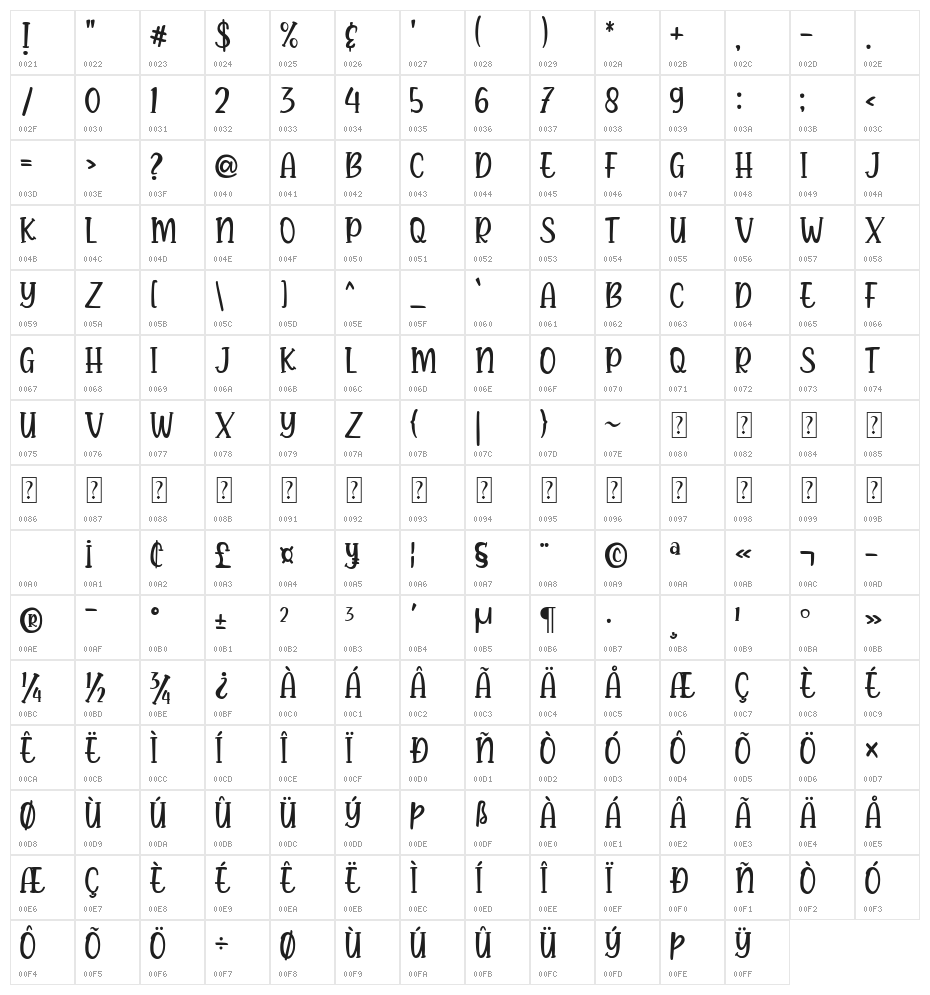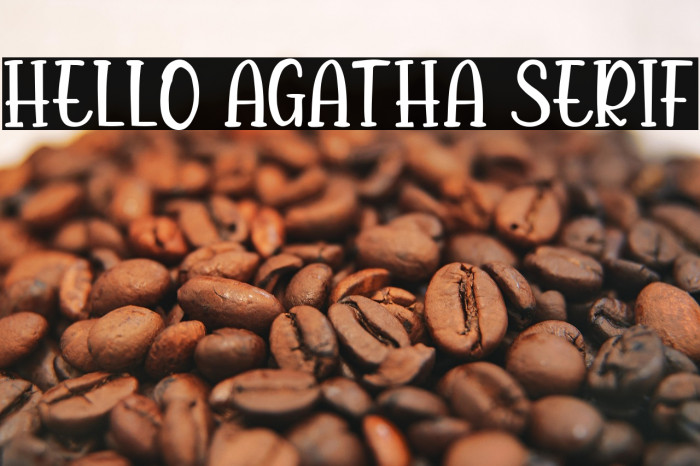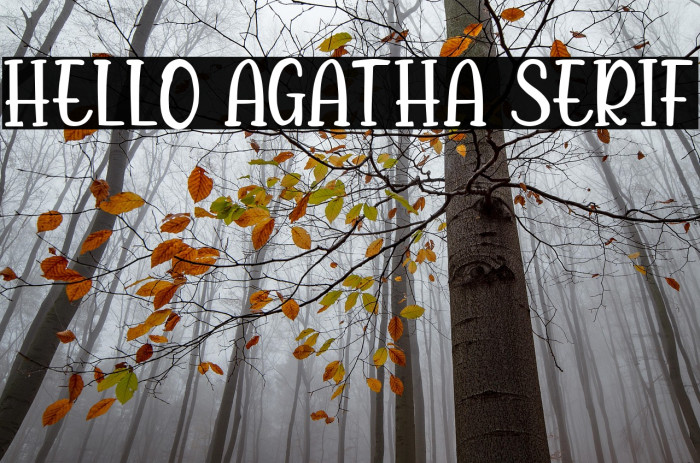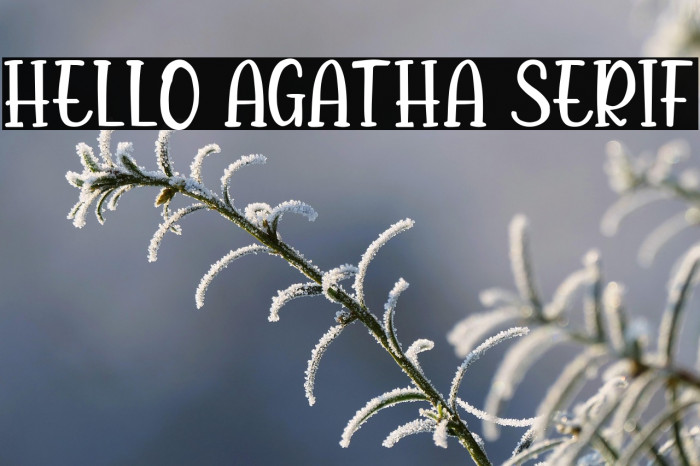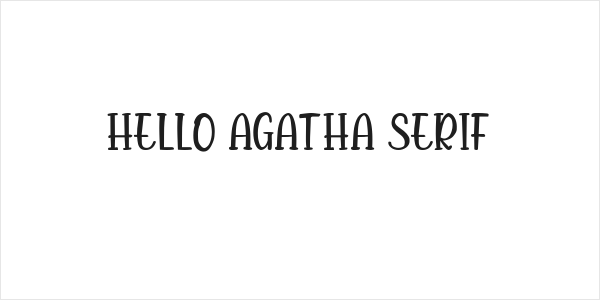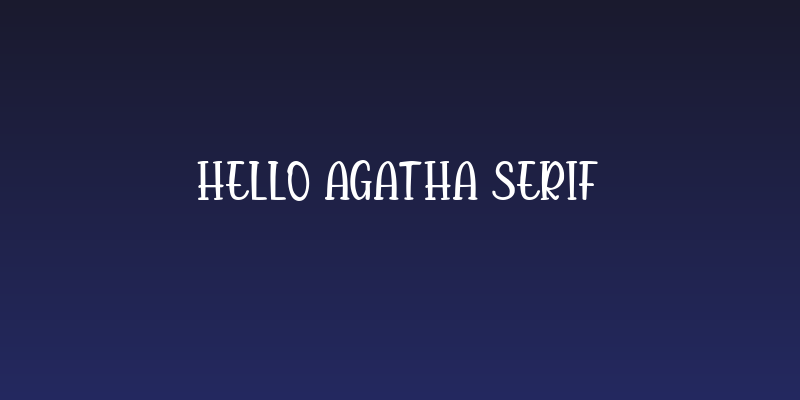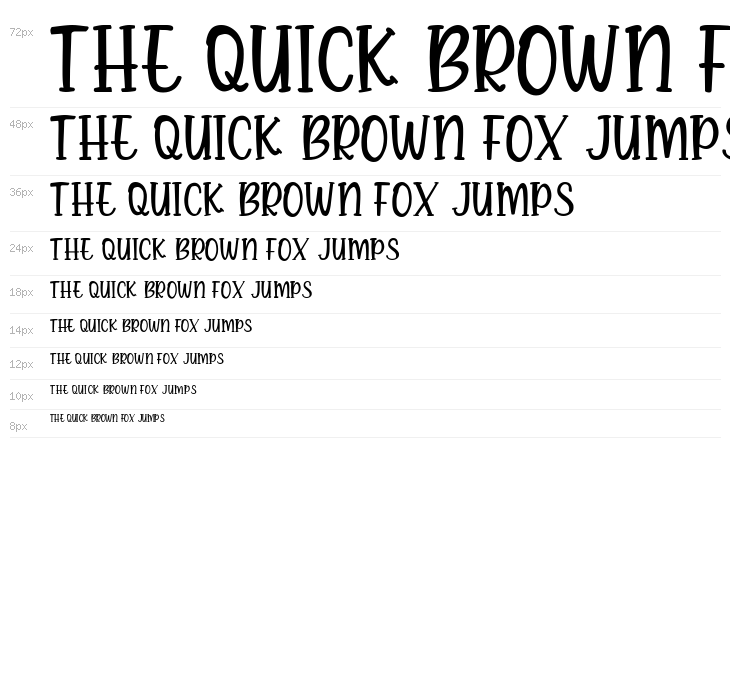
Hello Agatha Serif Font
Hello Agatha Serif Description
This font features a playful and whimsical design, characterized by its bold and slightly irregular strokes. The letters have a hand-drawn quality, with a mix of thick and thin lines that add a dynamic feel. The uppercase letters are tall and slightly narrow, while the lowercase letters maintain a consistent height, giving the font a cohesive look. The numbers and special characters follow the same style, ensuring uniformity across all elements. The font's unique style makes it stand out, making it suitable for creative and artistic projects.
| Proposed Projects | Ideal for children's books, creative posters, playful branding, and artistic invitations. |